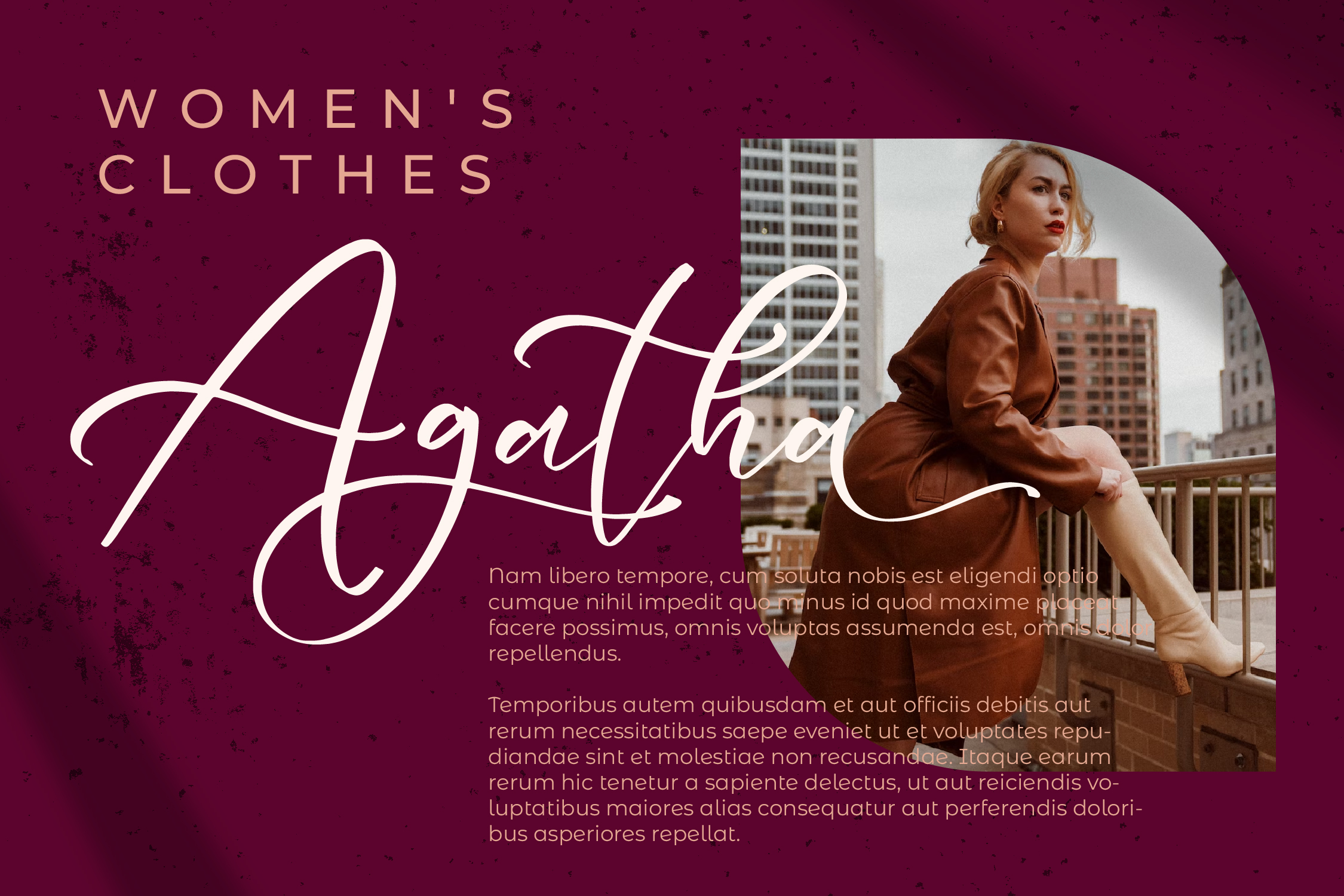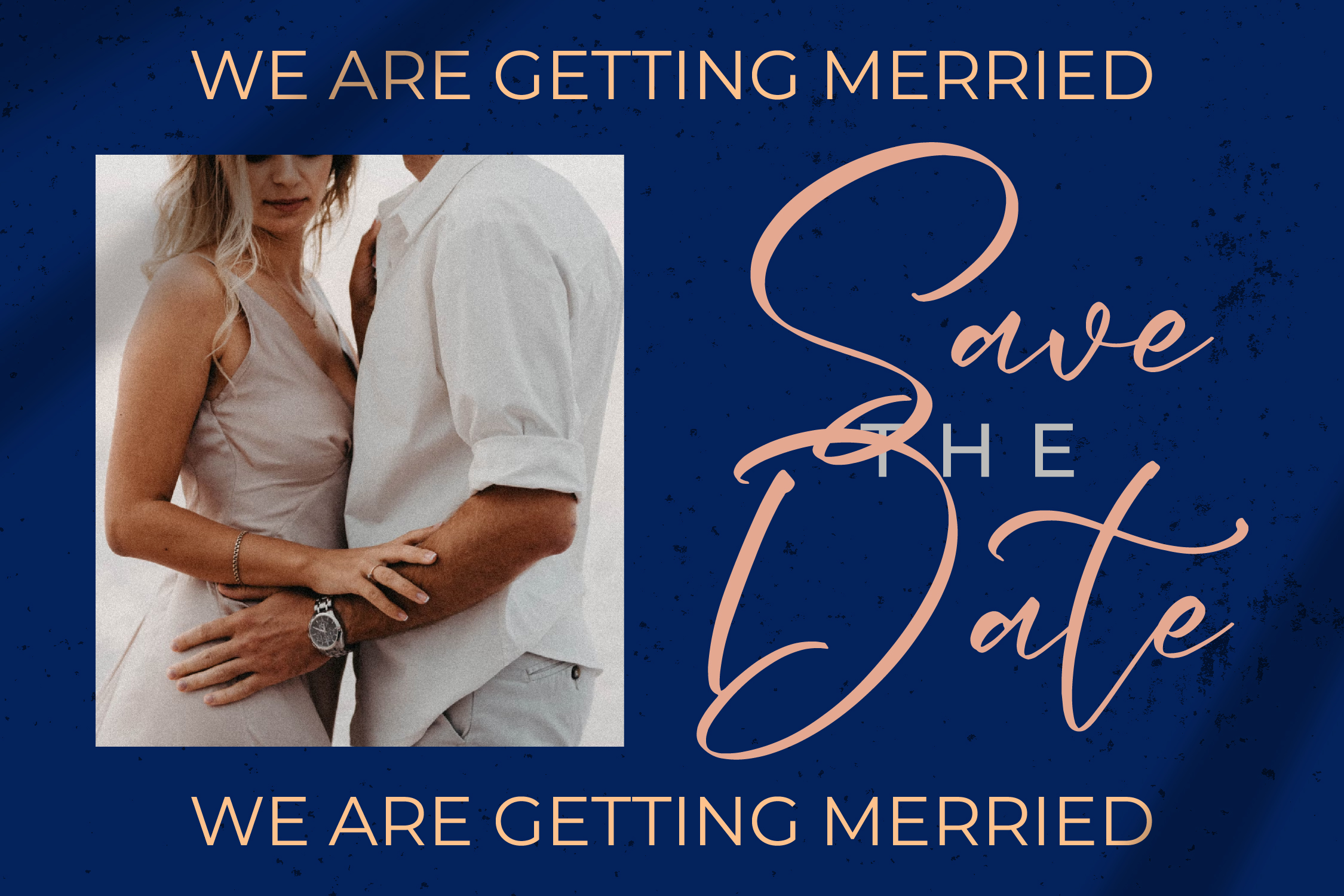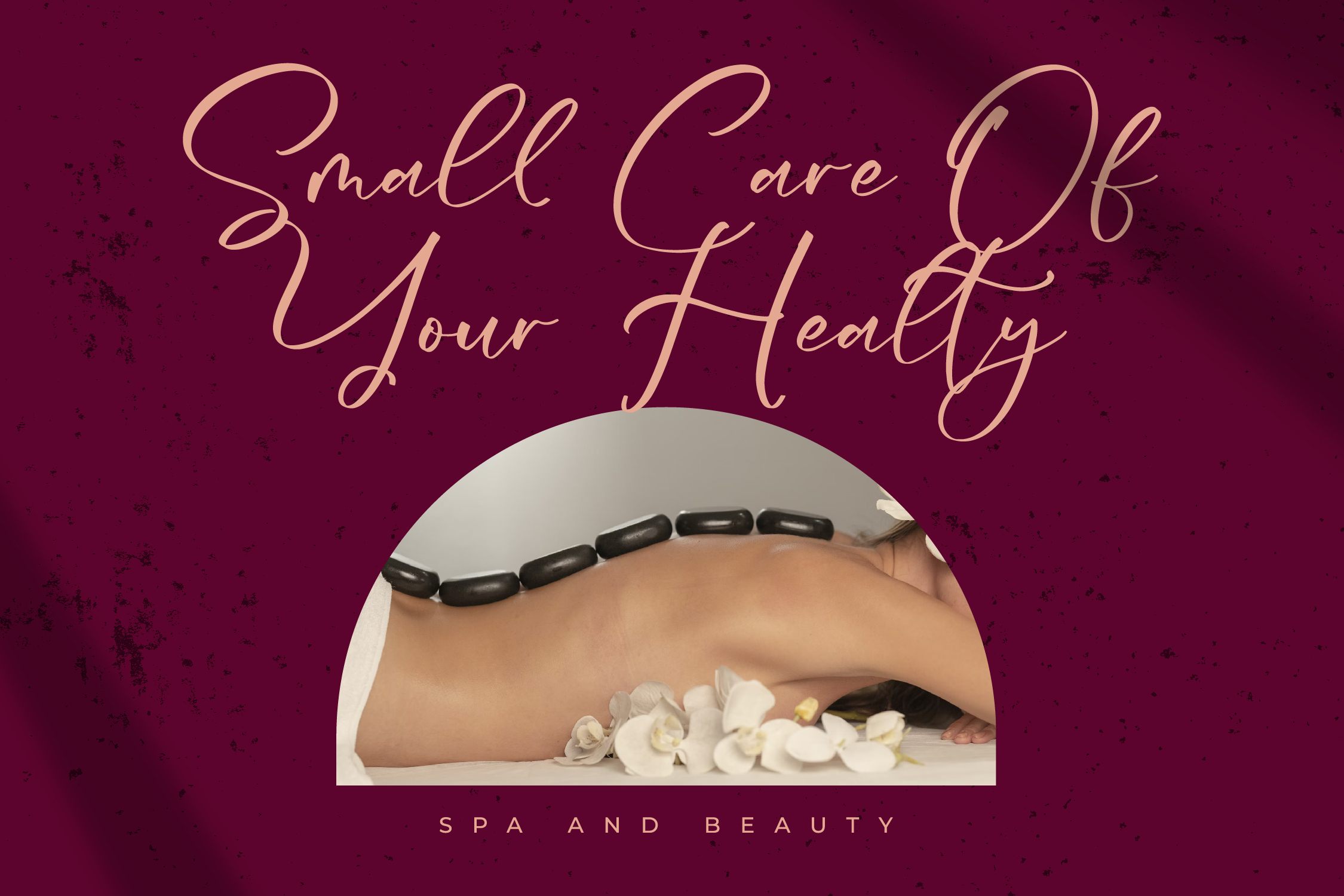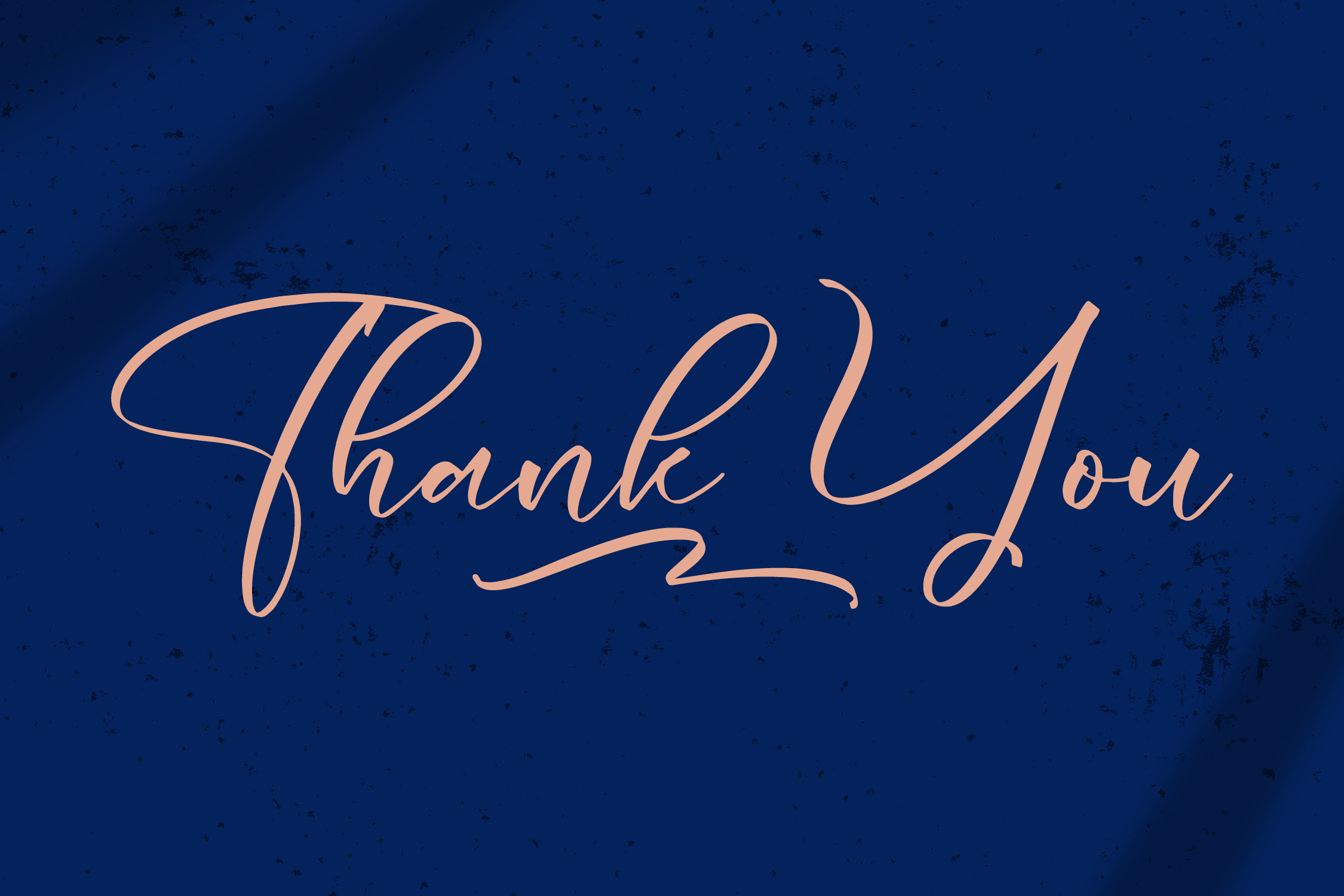
Qorytona Script Font is Beauty Script Font, suitable for any projects such as: logos, branding projects, homeware designs, product packaging, mugs, quotes, posters, shopping bags, t-shirts, book covers, name card, invitation cards, greeting cards, label, photography, watermark, special events, and all your other lovely projects that need a beautiful script taste.